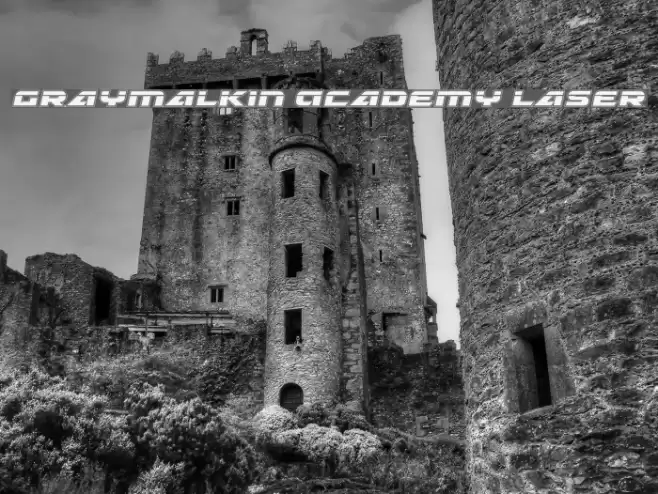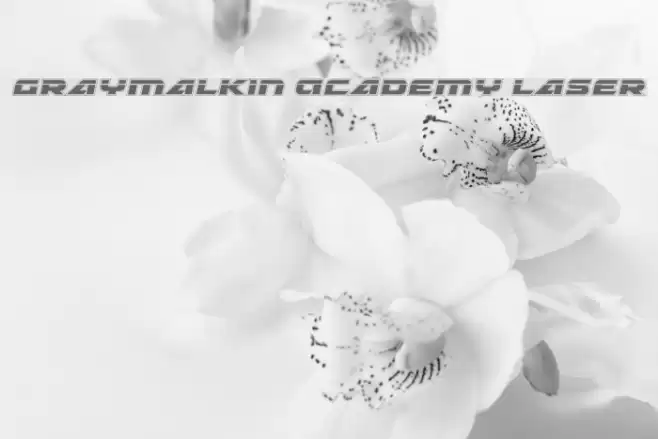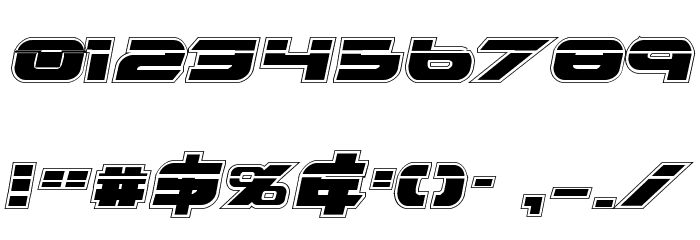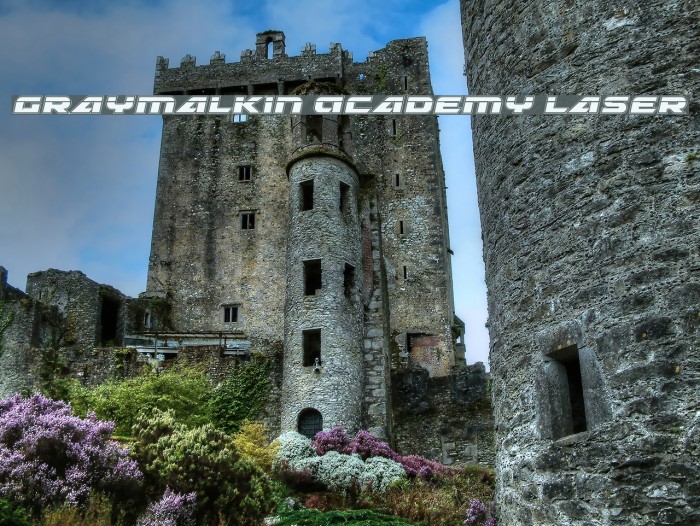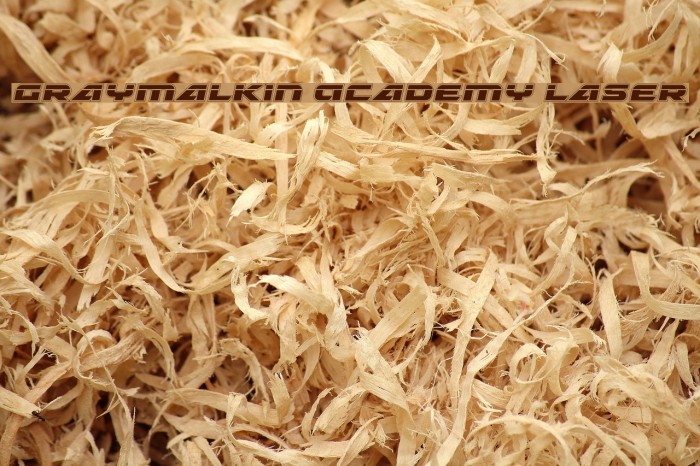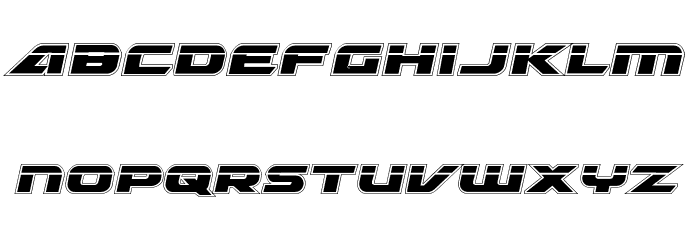
Graymalkin Academy Laser Font
Graymalkin Academy Laser Description
This font features a futuristic and bold design with a distinct laser-cut appearance. The characters are outlined with a thick border, giving them a three-dimensional effect. The angular and geometric shapes of the letters convey a sense of speed and modernity. The uppercase and lowercase letters maintain a consistent style, with sharp edges and a slightly condensed form. Numbers and special characters follow the same design principles, ensuring uniformity across all glyphs. This font is ideal for projects that require a modern and dynamic look, such as technology branding, sci-fi themed designs, or video game titles.
A futuristic, bold font with a laser-cut, three-dimensional appearance from Uncategorized fonts.
- Proposed Projects: Technology branding, sci-fi themed designs, video game titles, futuristic posters.